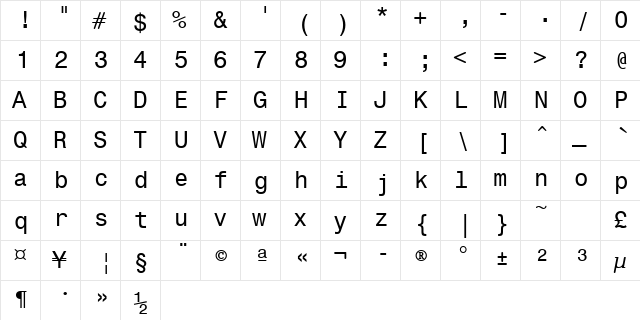
Monospac821Greek BT Roman
Monospac821Greek BT uses fixed-width spacing throughout, giving it the structured, systematic character associated with coding environments and technical documentation.